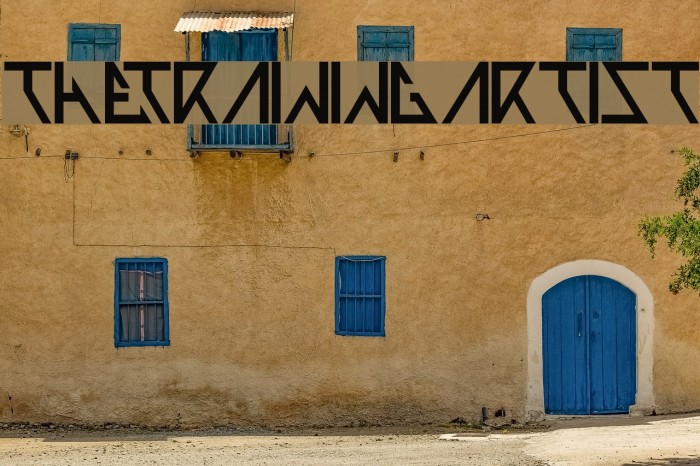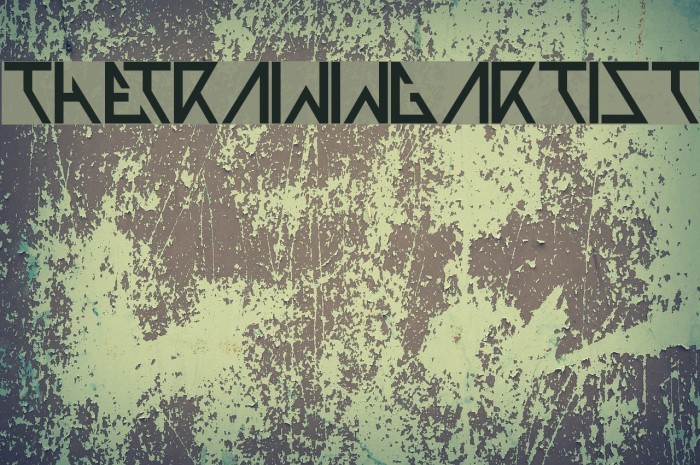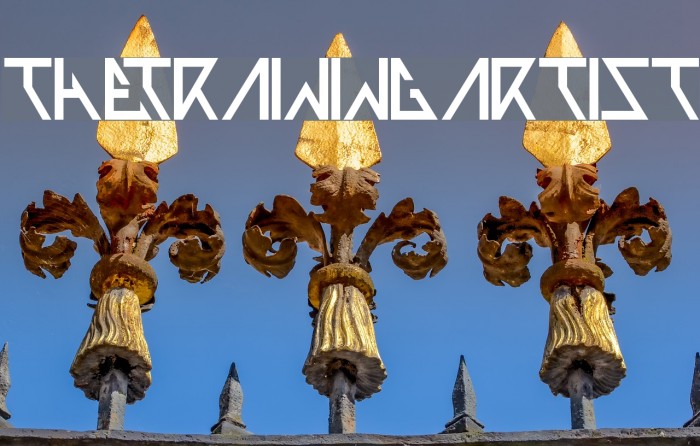
thetrainingartist Font
This font features a bold, geometric design with sharp angles and a futuristic aesthetic. Each character is constructed with straight lines and pointed edges, creating a sense of movement and energy. The uppercase letters are particularly striking, with a uniform height and width that enhances the font's modern appeal. The design is consistent across all characters, maintaining a cohesive look that is both eye-catching and versatile. This font is ideal for projects that require a strong visual impact, such as branding, posters, and digital media.
- Proposed Projects: Ideal for branding, posters, digital media, and any project needing a modern, impactful look.